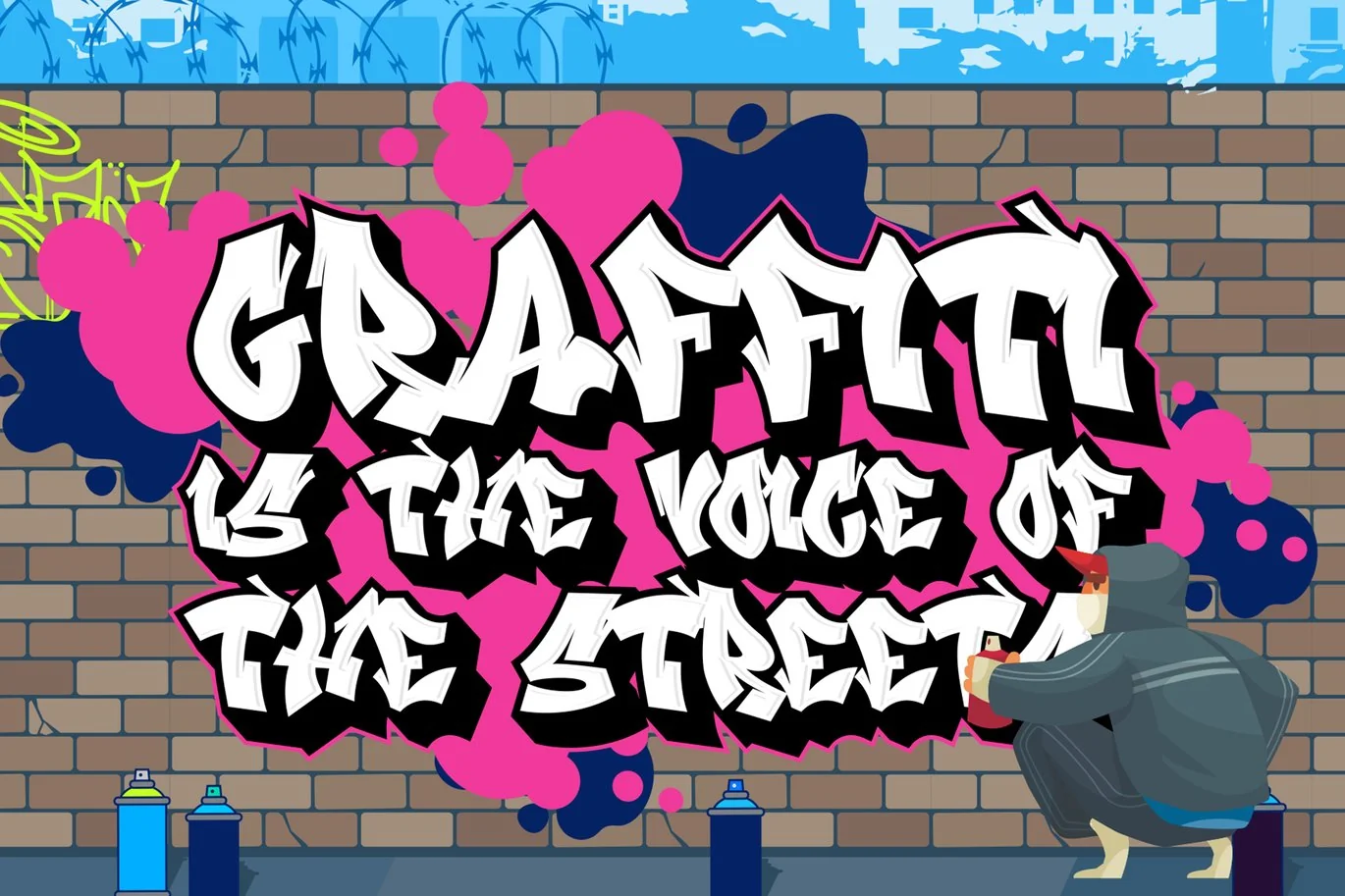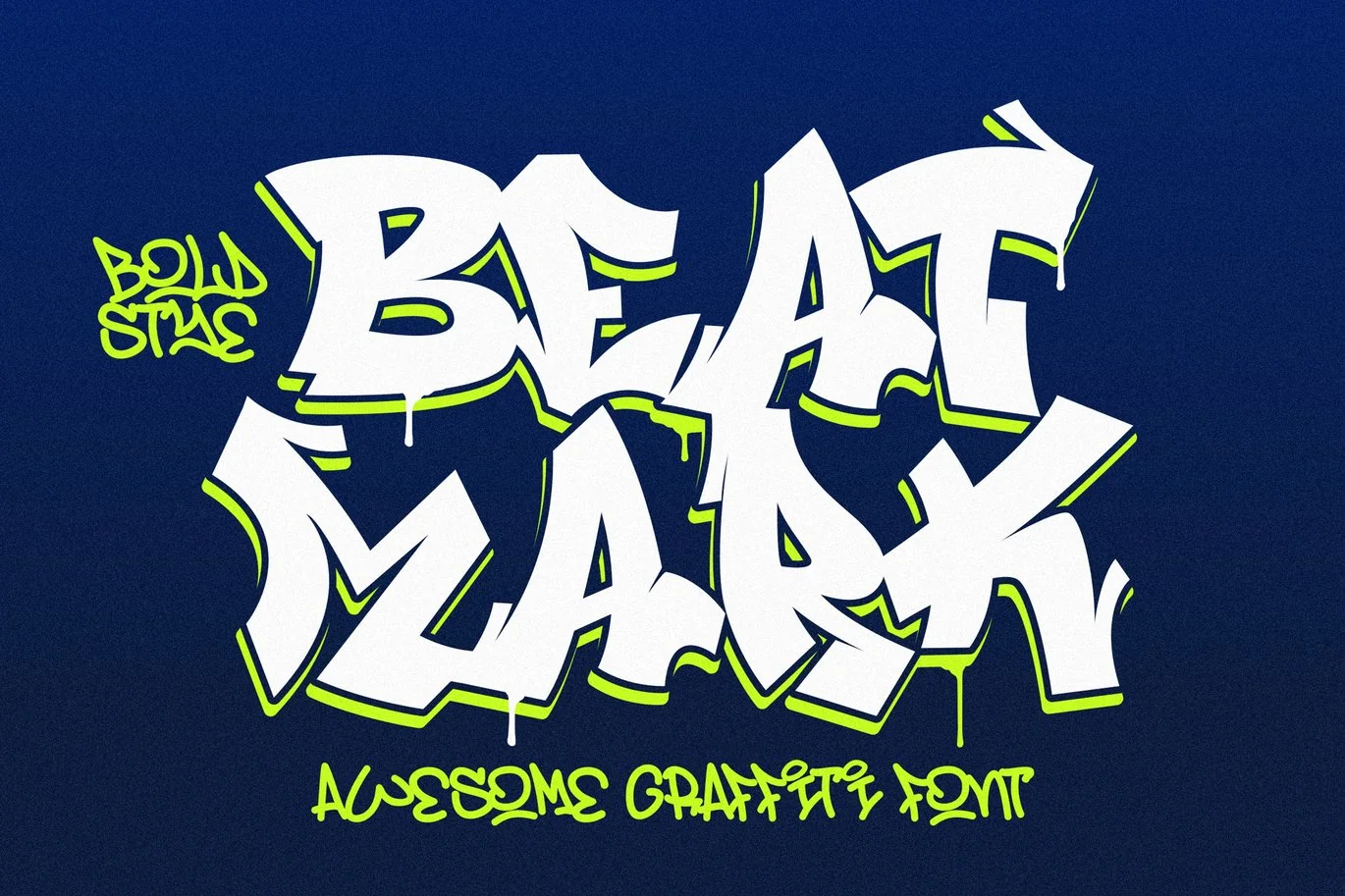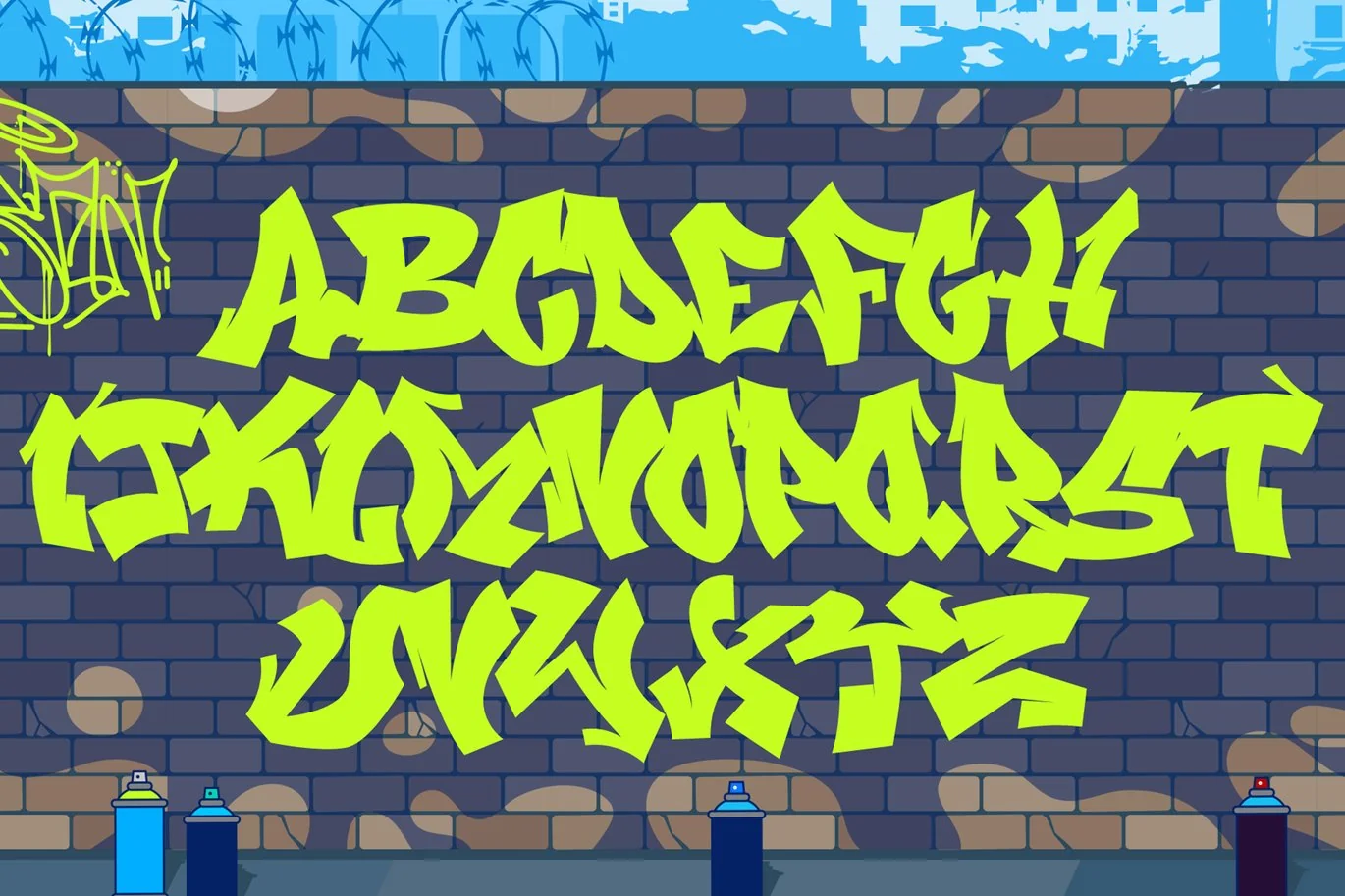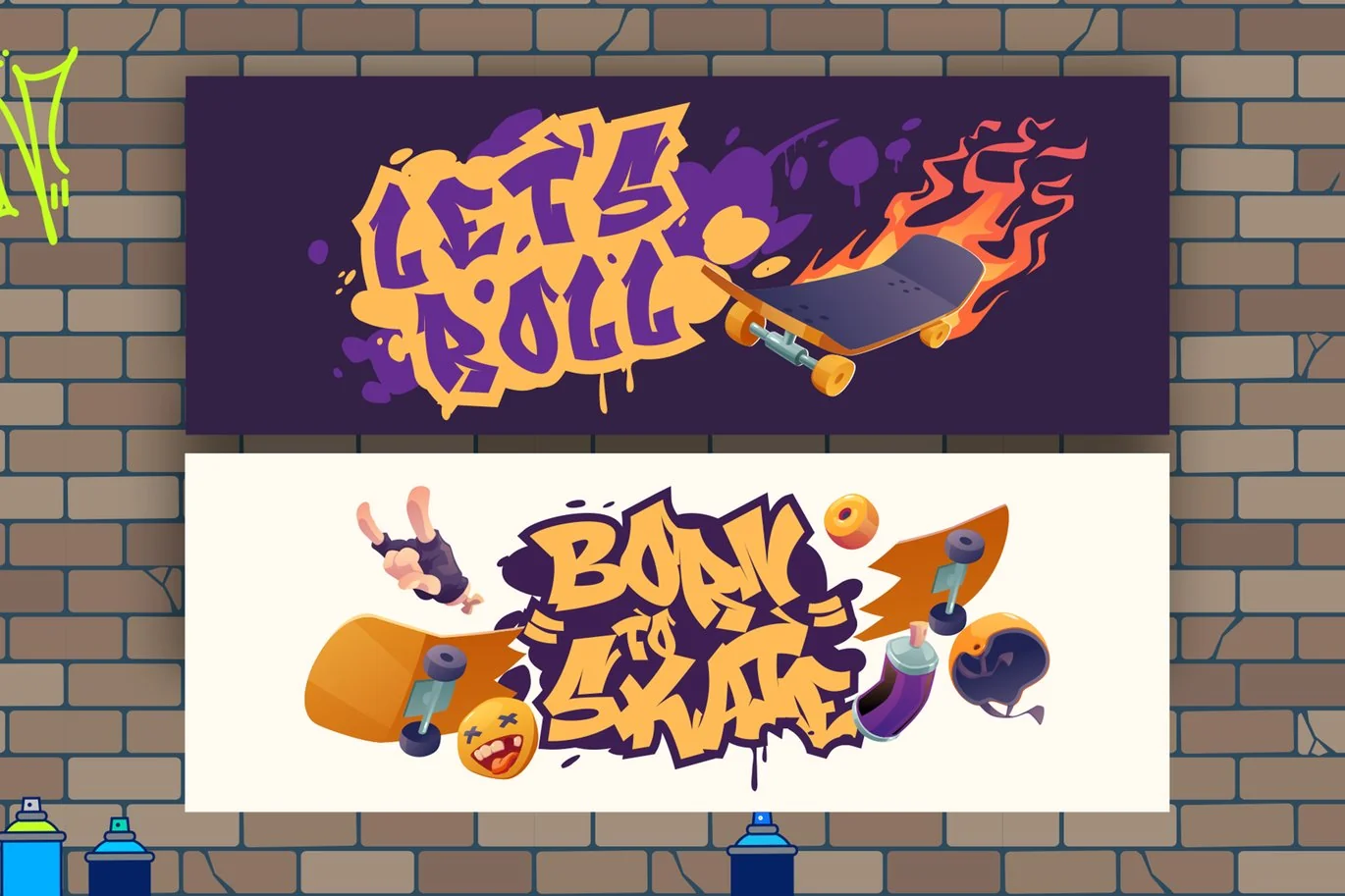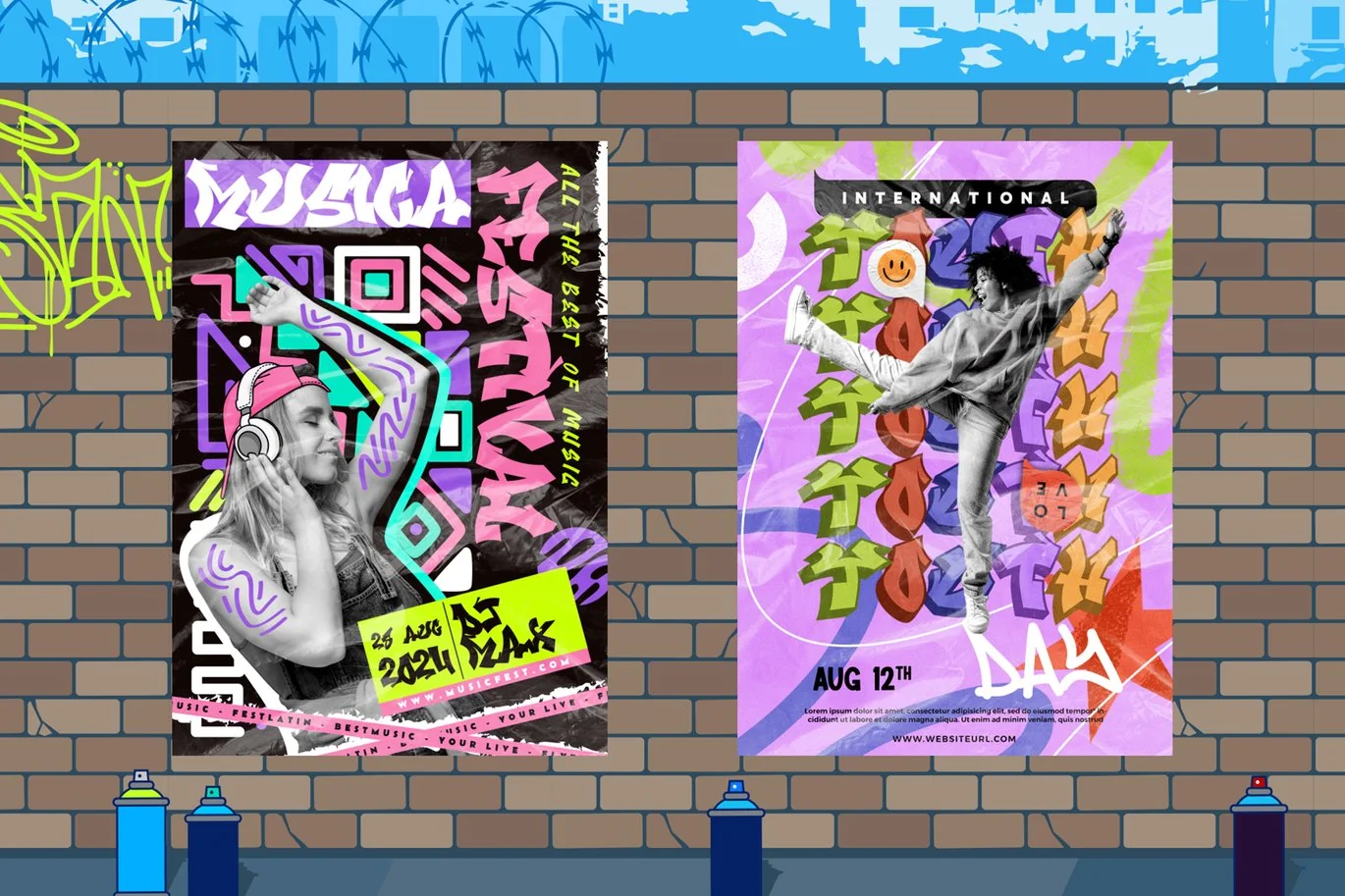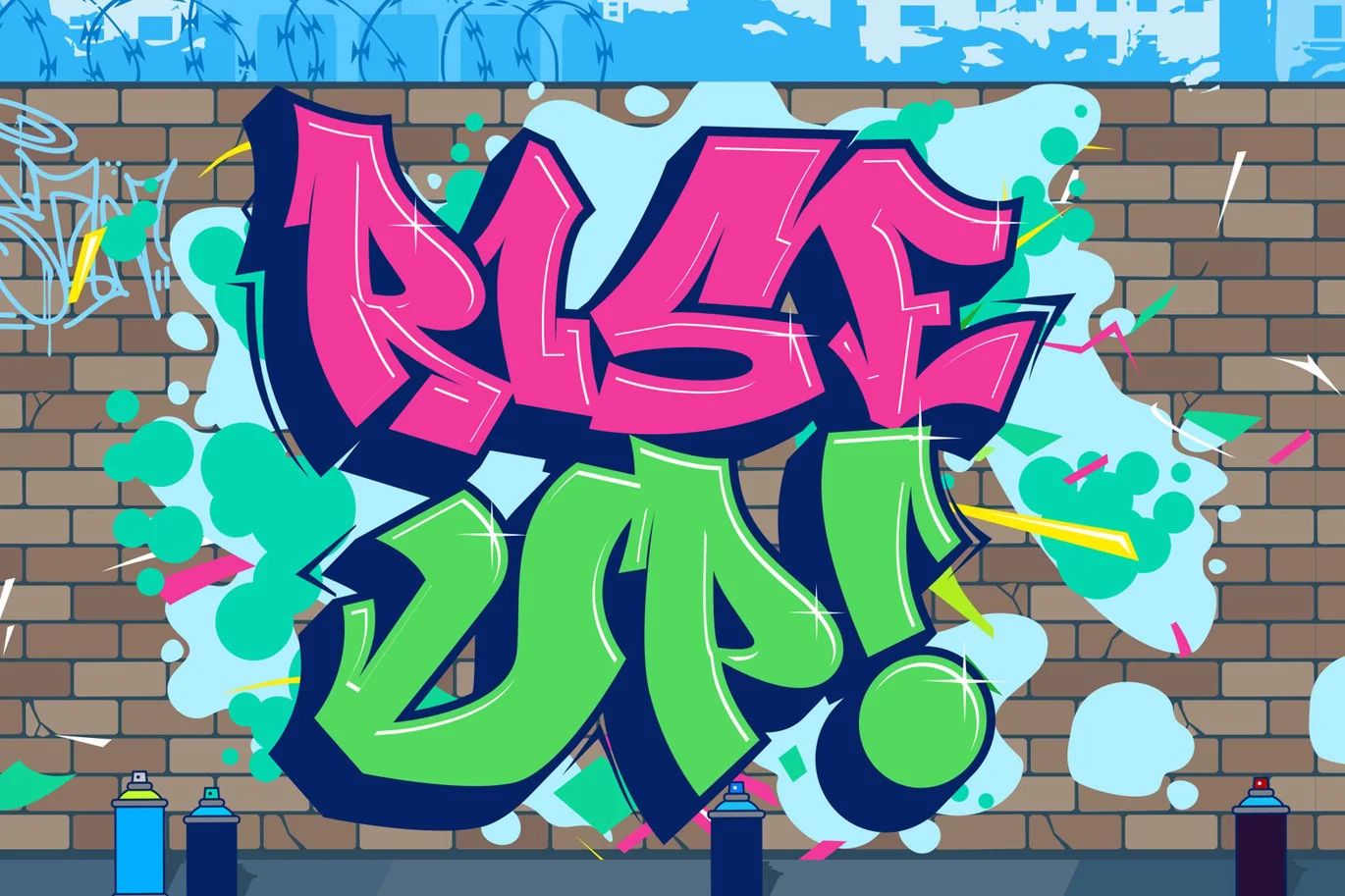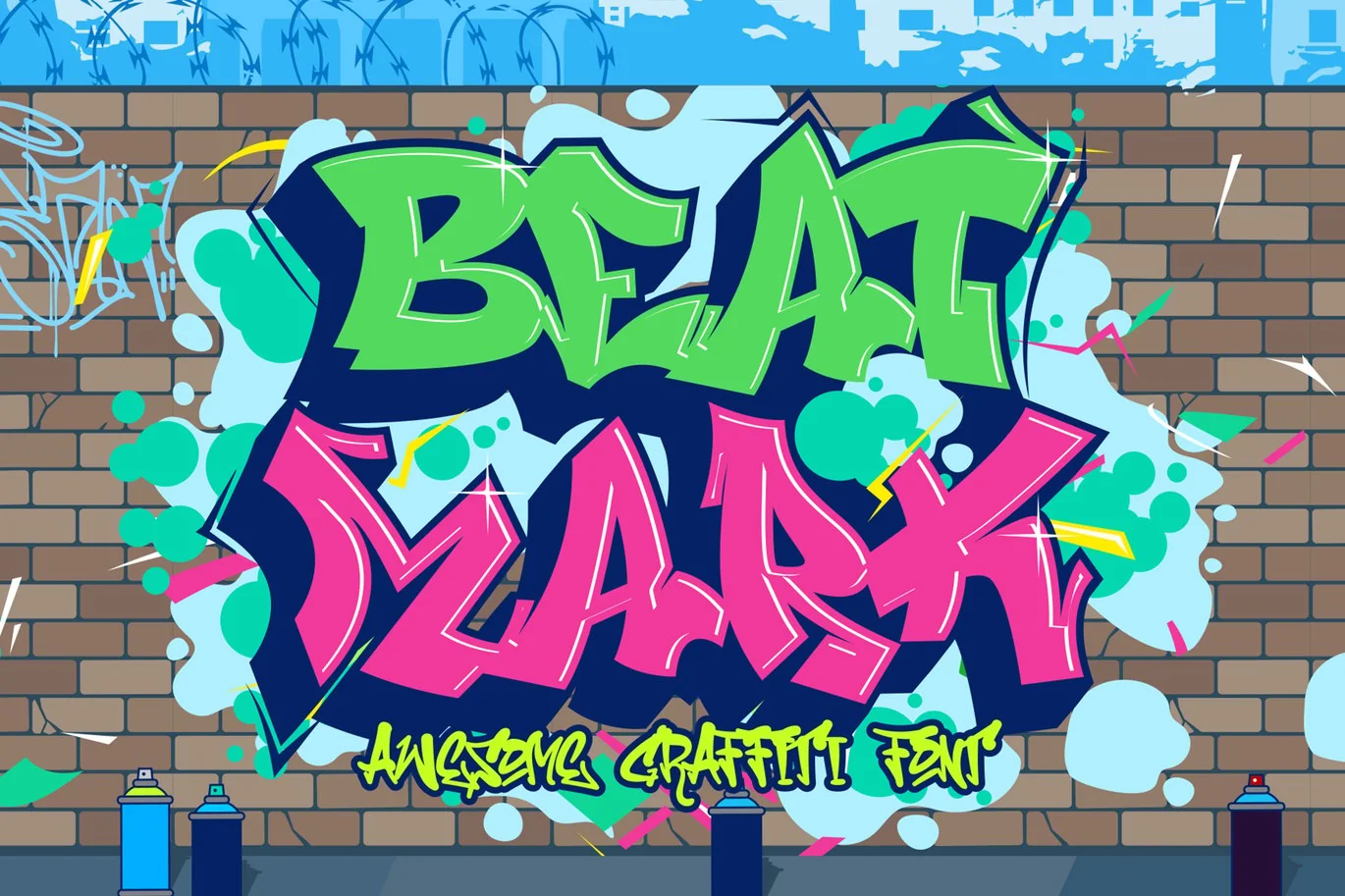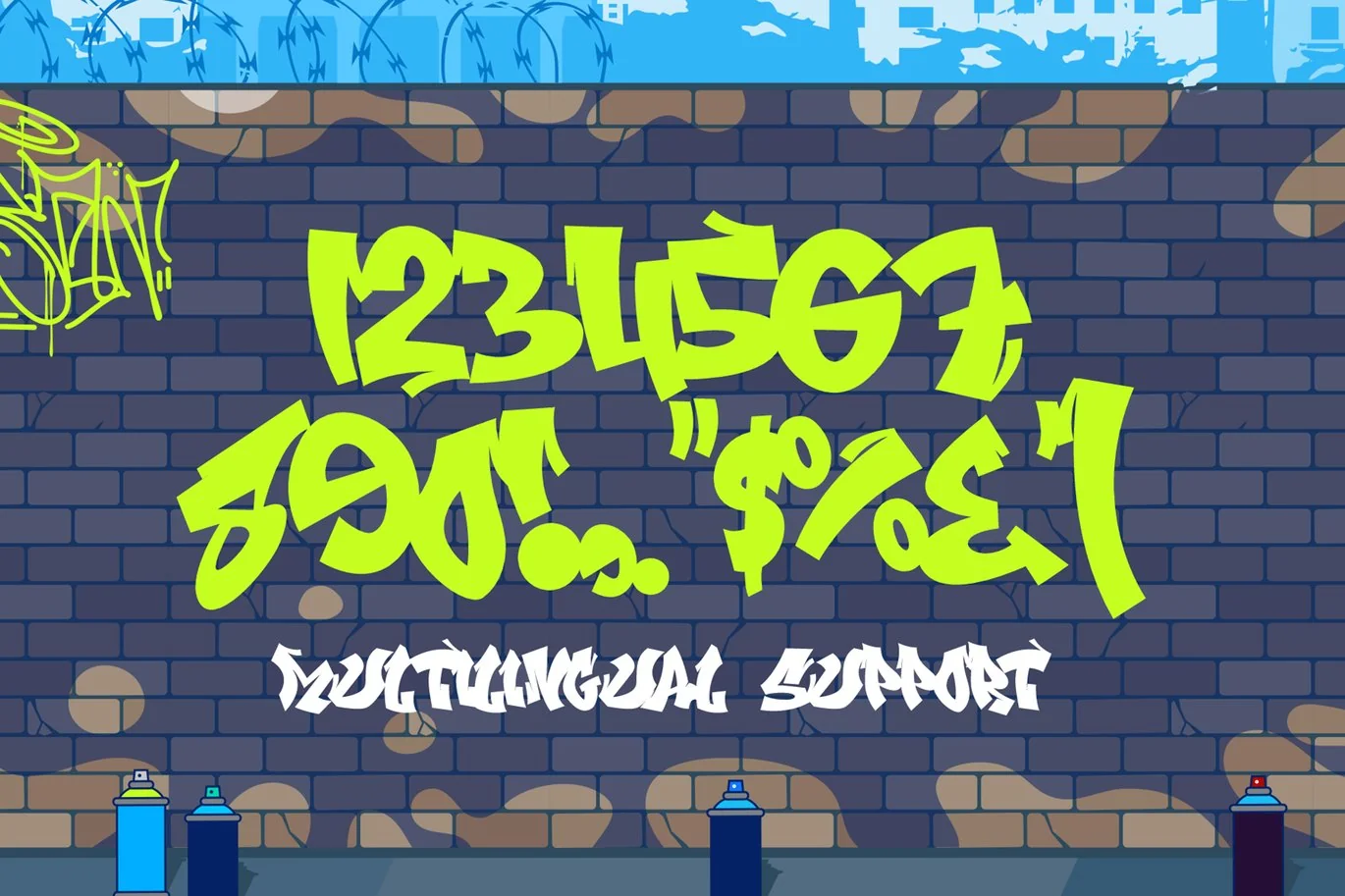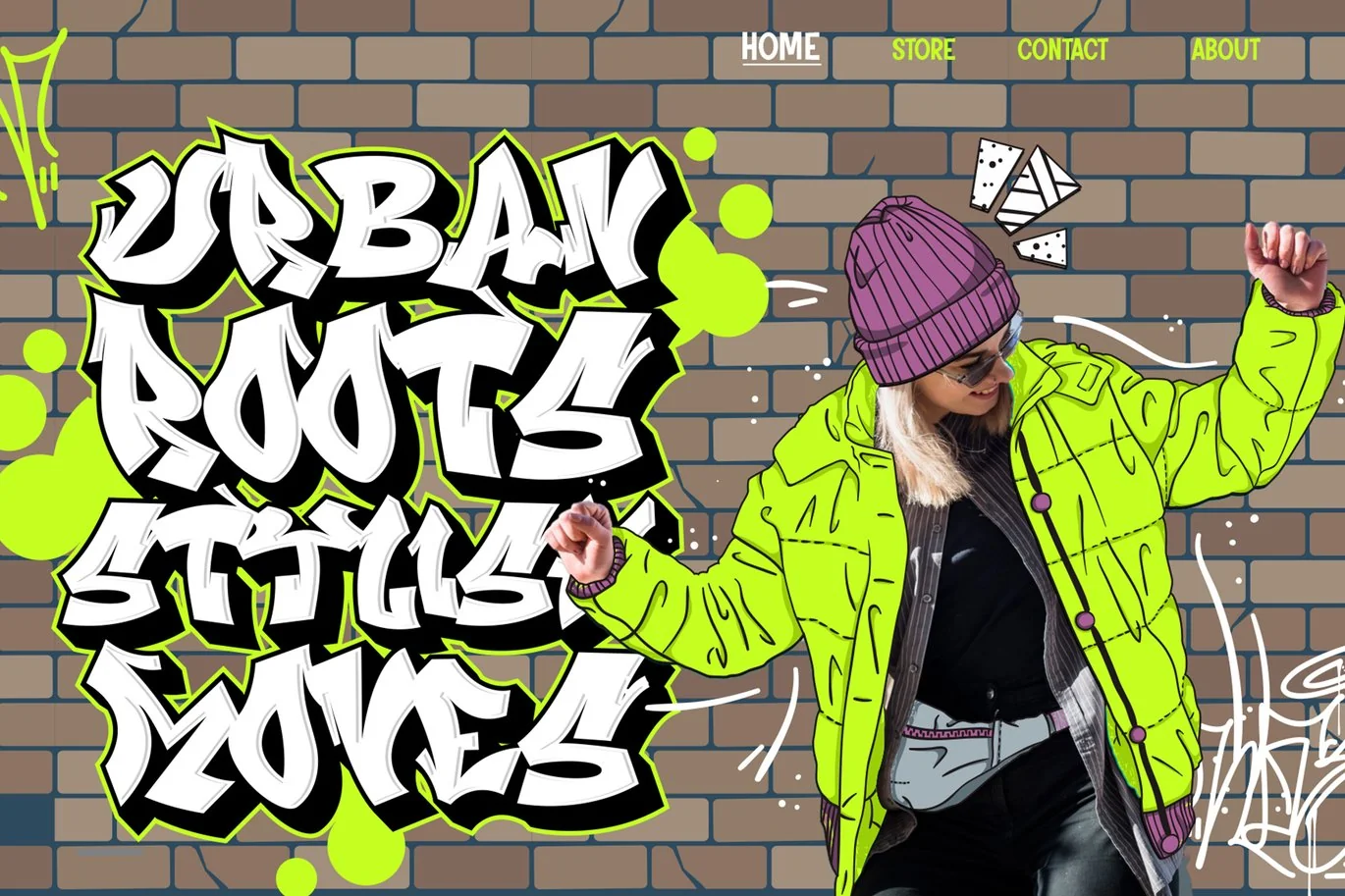
Beat Mark – Awesome Graffiti Font
Beat Mark is an incredible graffiti font characterized by its bold, dynamic, and edgy characters, perfectly embodying the raw essence of urban art. This font is designed to infuse your projects with street culture’s authentic, gritty vibe. Its striking design makes it ideal for various creative uses, from apparel and posters to social media graphics and branding. The powerful visual impact of Beat Mark ensures that it stands out, making your designs eye-catching and deeply resonant with the energy and spirit of graffiti. Whether you’re working on a graffiti-themed project or looking to add a touch of street style to your work, Beat Mark delivers a robust and vibrant aesthetic that captures the pulse of the streets.